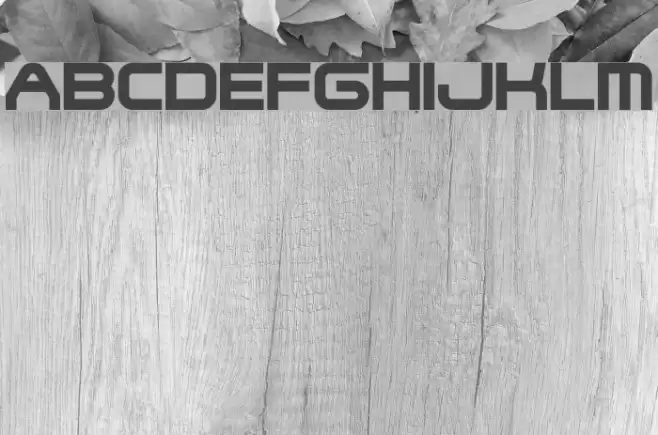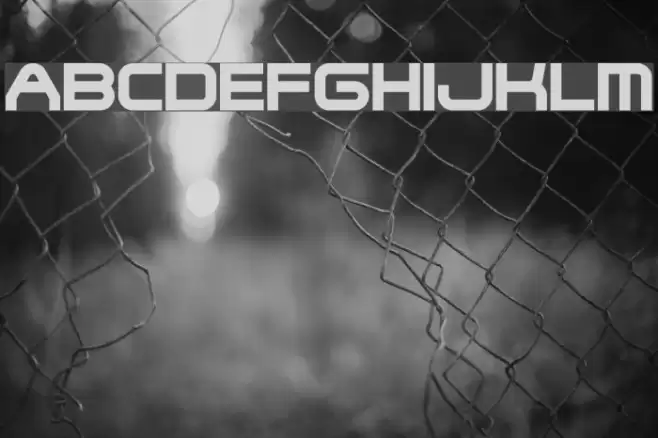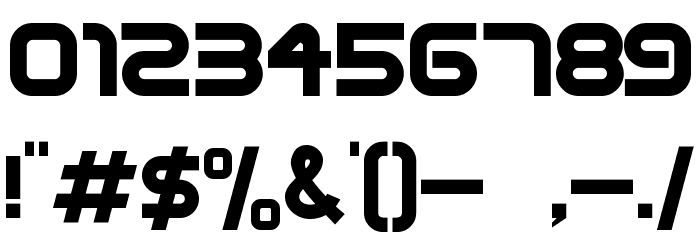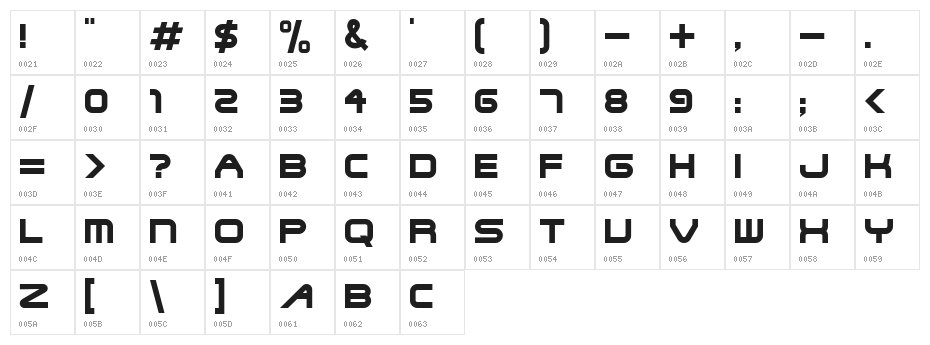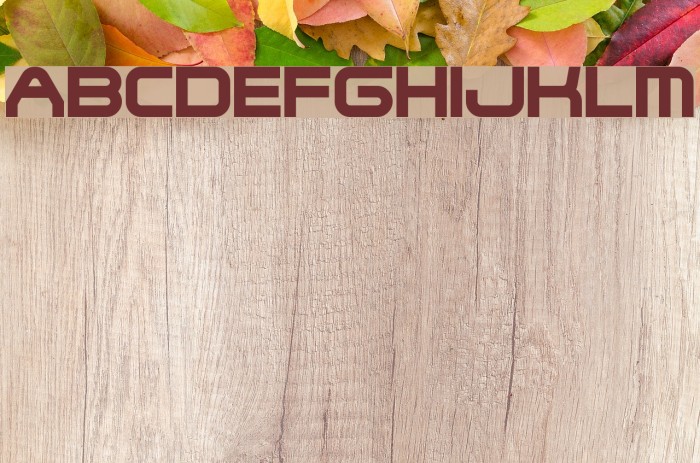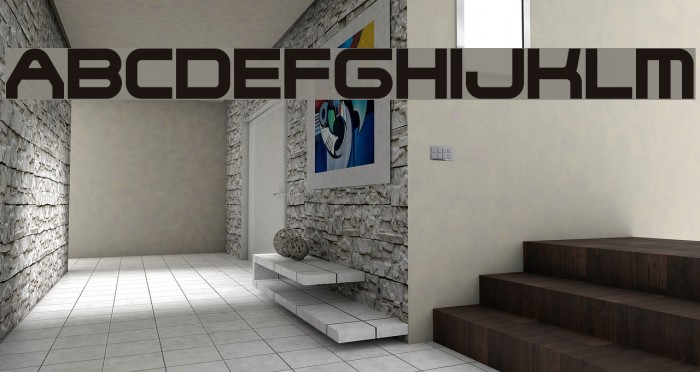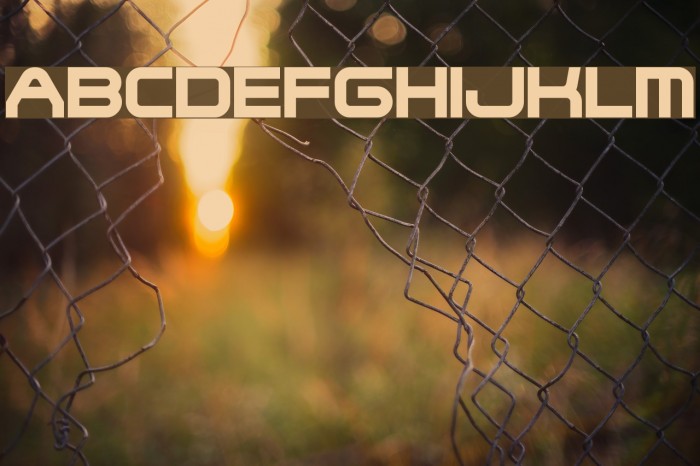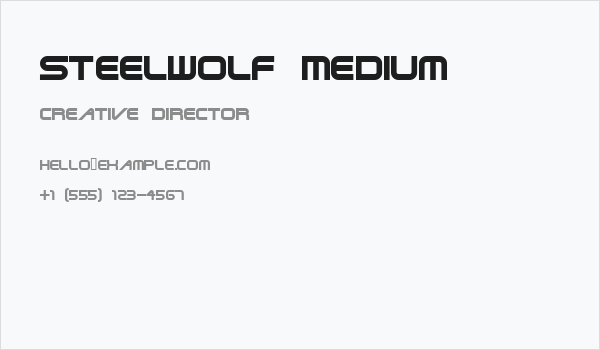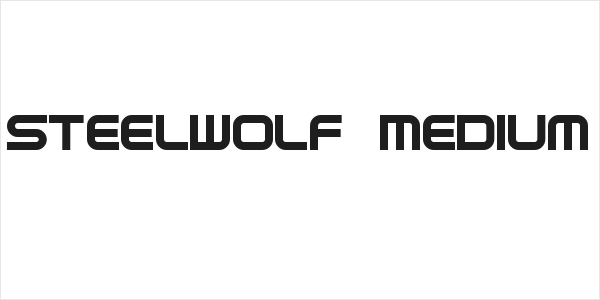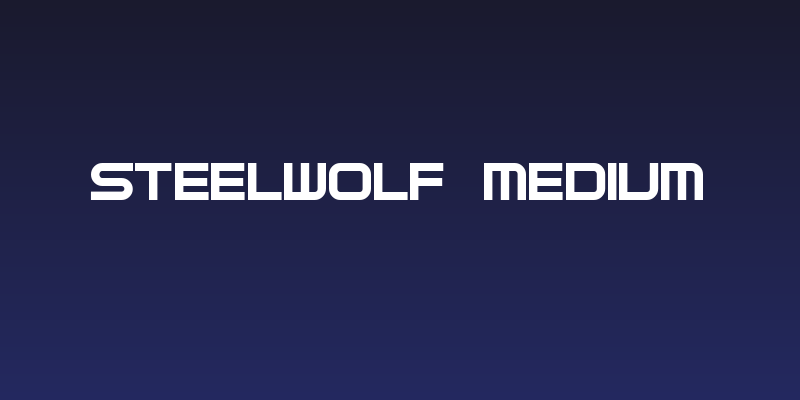
SteelWolf Medium Font
SteelWolf Medium Description
This font features a bold and futuristic design with a geometric structure. The characters are constructed with sharp angles and clean lines, giving it a modern and industrial feel. The uppercase letters are particularly striking, with a consistent height and width that create a uniform appearance. The lowercase letters maintain the same angular style, ensuring readability while preserving the font's unique aesthetic. Numbers and special characters are designed to match the boldness and geometric nature of the alphabet, making them suitable for a variety of applications. The overall look is sleek and contemporary, ideal for projects that require a strong visual impact.
A bold, geometric font with a futuristic and industrial design from Modern fonts.
- Proposed Projects: Ideal for technology branding, sci-fi themed designs, video game interfaces, and modern advertising.